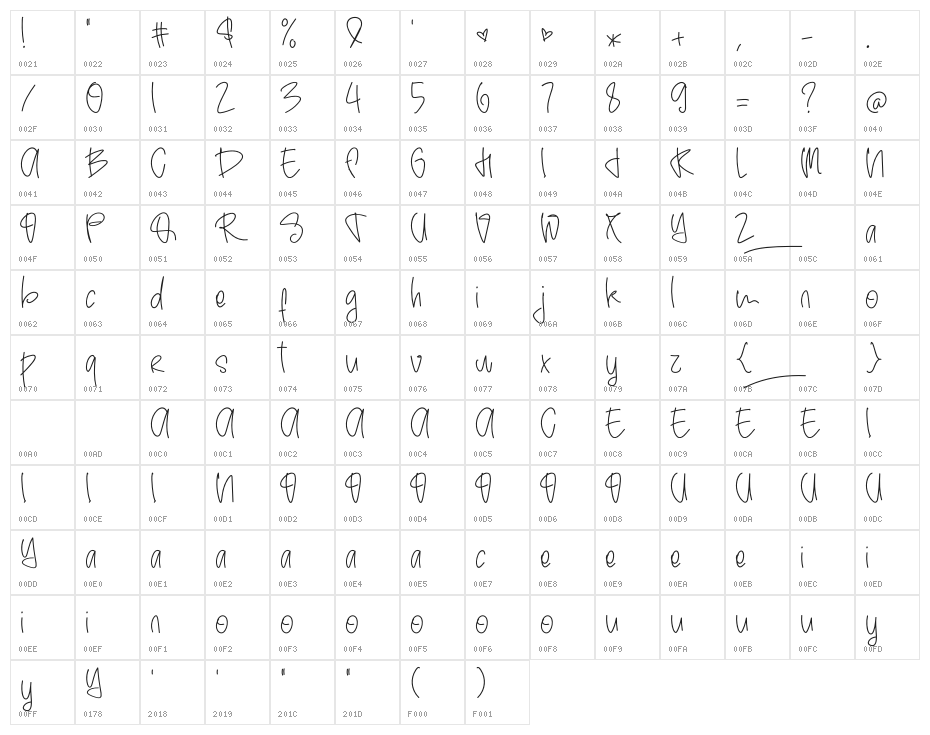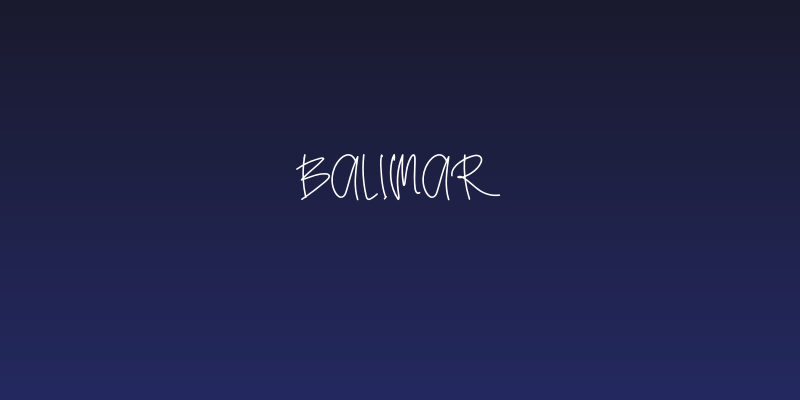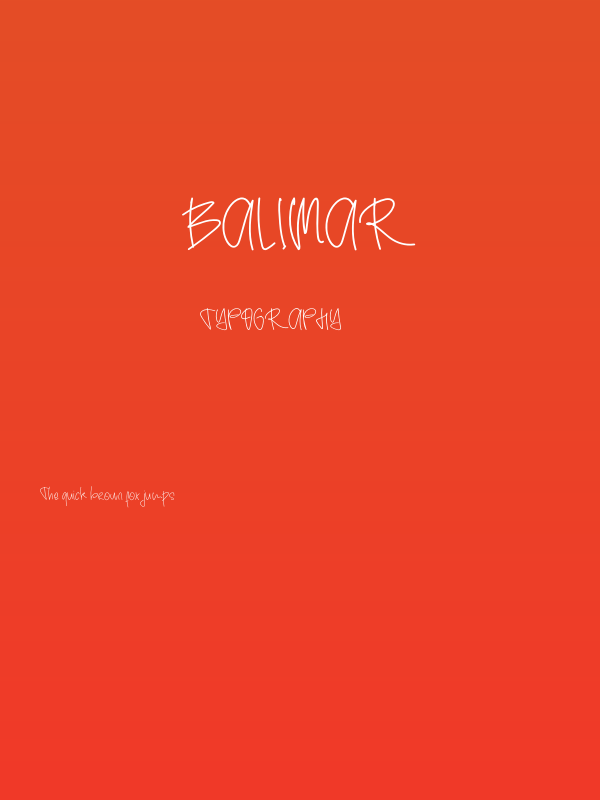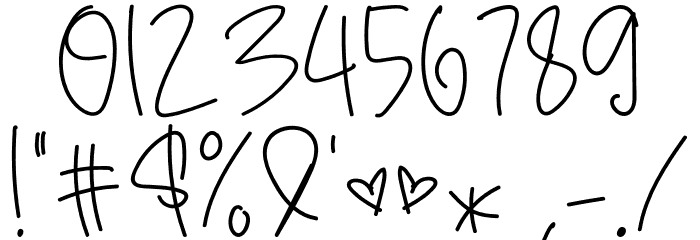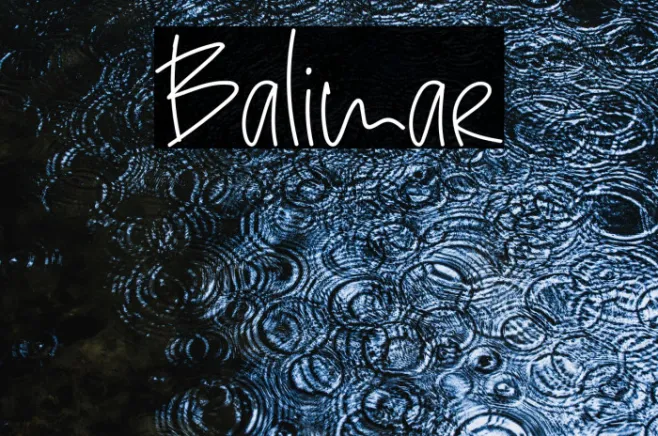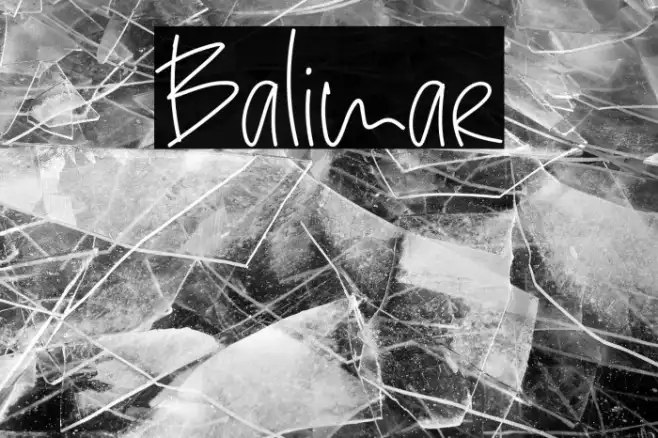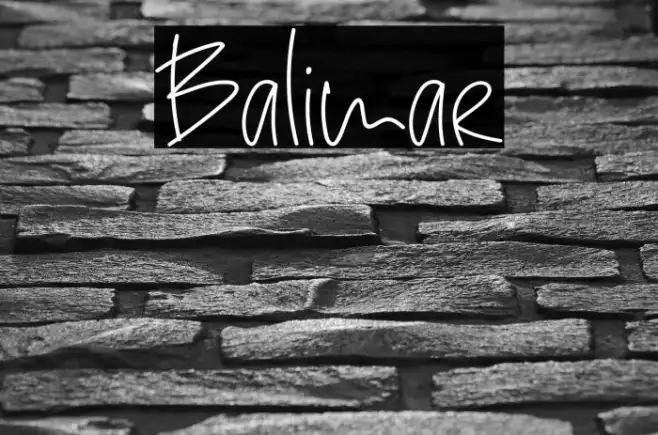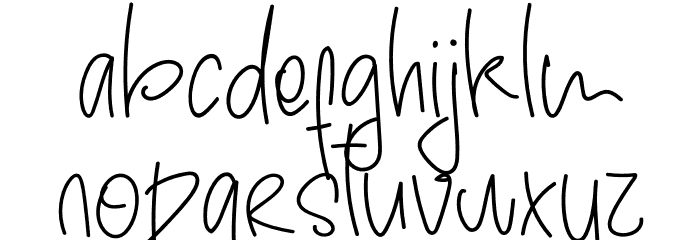
Balimar Font
Balimar Description
This font features a playful and casual handwritten style, characterized by its loose and flowing letterforms. The strokes are uneven, adding a dynamic and lively feel to the text. The uppercase and lowercase letters maintain a consistent style, with a slight slant that enhances the informal appearance. The numerals and special characters are crafted with the same whimsical touch, ensuring a cohesive look across all elements. The overall design is approachable and friendly, making it suitable for projects that require a personal and informal tone.